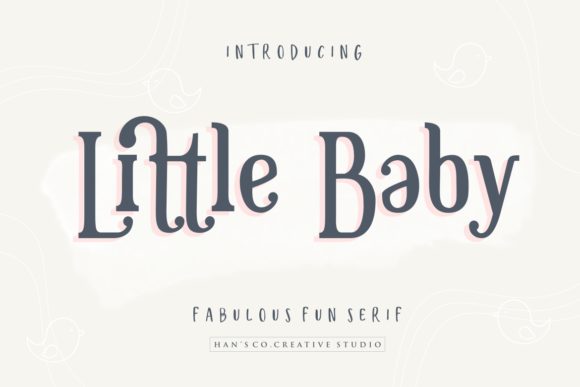
Introducing Little Baby Font: A Serif Creation by HansCo That Will Melt Your Heart!
Prepare to be captivated by Little Baby Font, a serif font family that exudes whimsical charm and undeniable cuteness. Designed by the talented HansCo, this font is the epitome of playful elegance, transforming any kid's or baby-themed project into an enchanting masterpiece.
Step into a world of imagination and creativity with Little Baby Font. Its playful curves and adorable details capture the essence of childhood innocence, making it the perfect choice for creating designs that resonate with kids and parents alike. From baby shower invitations to nursery decor, personalized gifts to playful branding, Little Baby Font adds a touch of magic to every project it graces.
With Little Baby Font, you can:
- Ignite Your Imagination: Unleash your creative spirit and explore endless possibilities with a font that sparks creativity and brings joy to your designs.
- Create Enchanting Designs: Transform ordinary projects into captivating works of art, leaving a lasting impression on your audience.
- Make a Lasting Impact: Captivate your audience with designs that stand out from the crowd, creating a memorable experience that lingers long after the project is complete.
- Immerse Yourself in Playful Elegance: Embrace the charm and grace of Little Baby Font, allowing your designs to exude a sense of joy and lightheartedness.
Don't miss this opportunity to own Little Baby Font and add a touch of enchantment to your creative arsenal. Embrace the magic of whimsy and create designs that radiate happiness and delight.